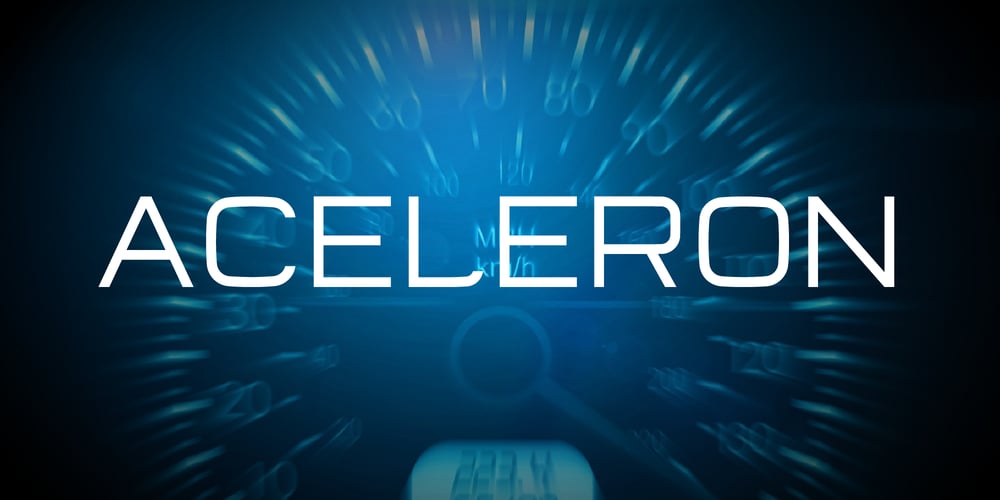
Aceleron
Aceleron font
Aceleron Font Family was designed by Volodymyr Berla and published by VladB. Aceleron contains 4 styles and family package options. Aceleron is a modern sans serif geometric font, includes upper and lower case characters, Latin, Cyrillic, Latin Eastern Europe, Turkish, Baltic and other, 500+ symbols.Aceleron family consists of 4 fonts, and have the 4 types of thickness.Aceleron fonts will be useful in developing a brand, creating posters and other graphic products, and for word processing.